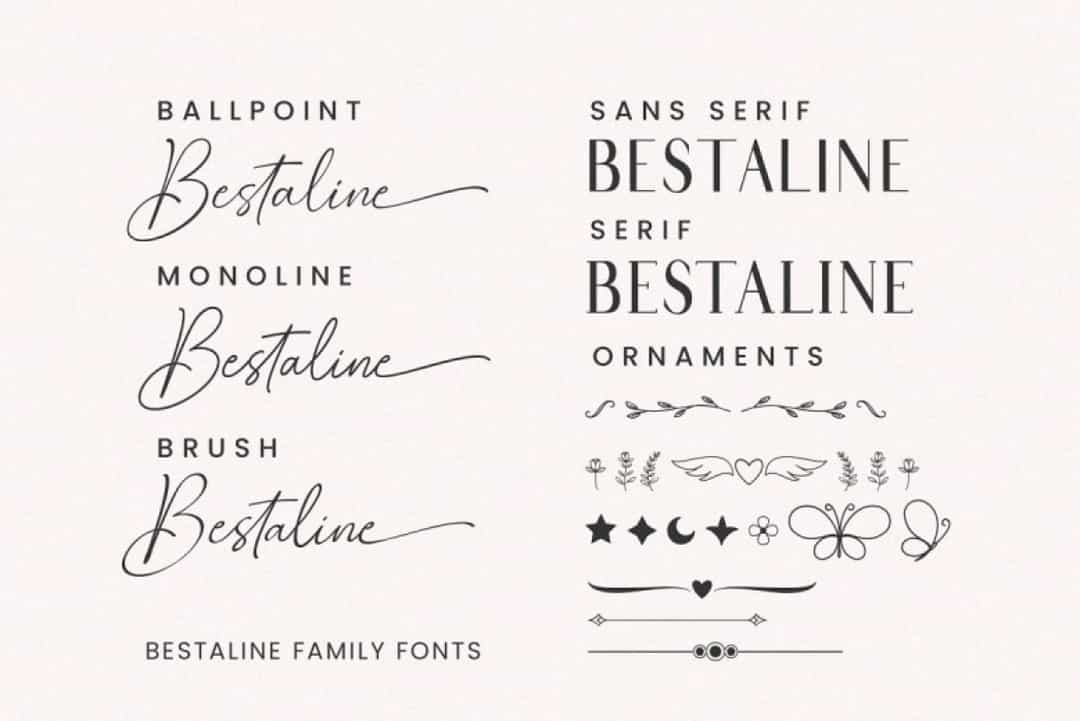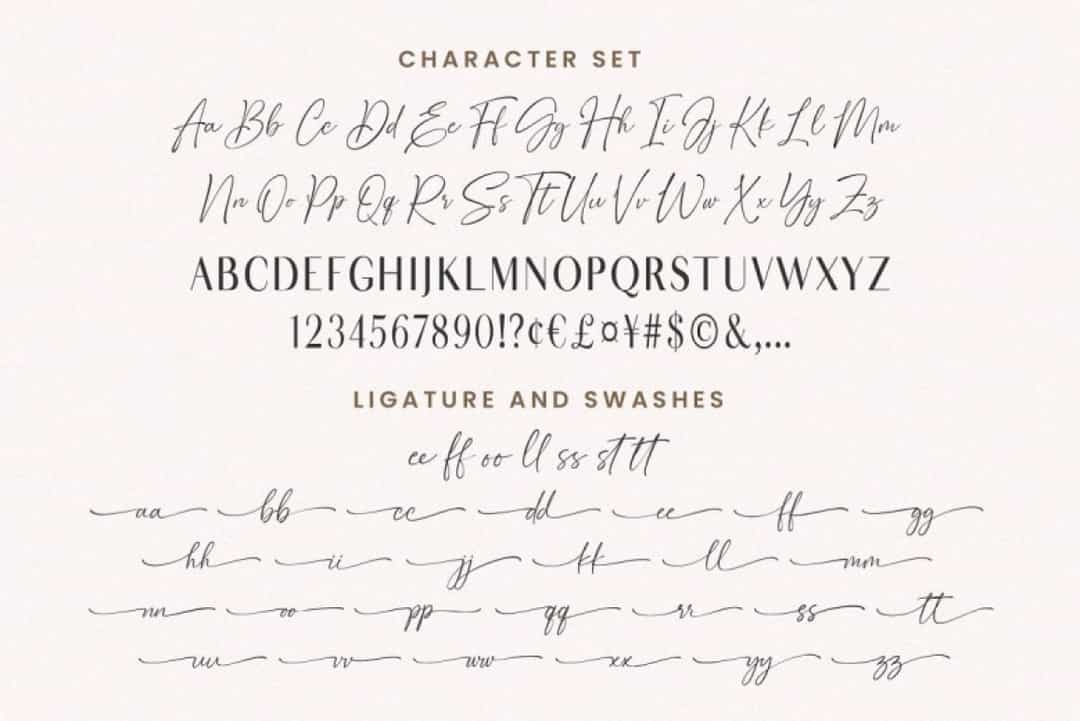
Discover Bestaline Font, part of the Sans Serif Handwritten collection—a versatile and unique font perfect for adding a personal touch to your projects. Download it for free and enjoy crafting designs with style, from invitations to social media posts. This font is available exclusively for personal use, giving you the freedom to create without limits. Unlock your creativity with Bestaline Font today!
Bestaline font pack is an extremely flexible font solution. Featuring five distinct ornamental styles and fonts which can be utilized individually or combined for various projects, Bestaline comes equipped with five styles of ornamental ornaments and fonts that can be utilized together as one set or individually for various projects. We’ve even made use of opentype to simplify its usage for beginning/ending swashes – making this font pack simple yet effective for anyone to use!